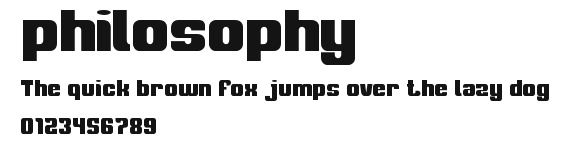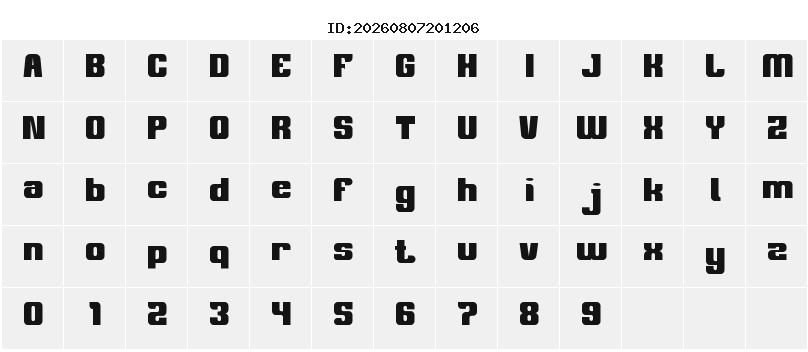
• Font Name: philosophy
• Full Font Name: philosophy
About philosophy.ttf
philosophy.ttf is a modern, elegant sans-serif font designed for ultimate readability and visual harmony. Perfect for branding, headlines, web design, and print materials.